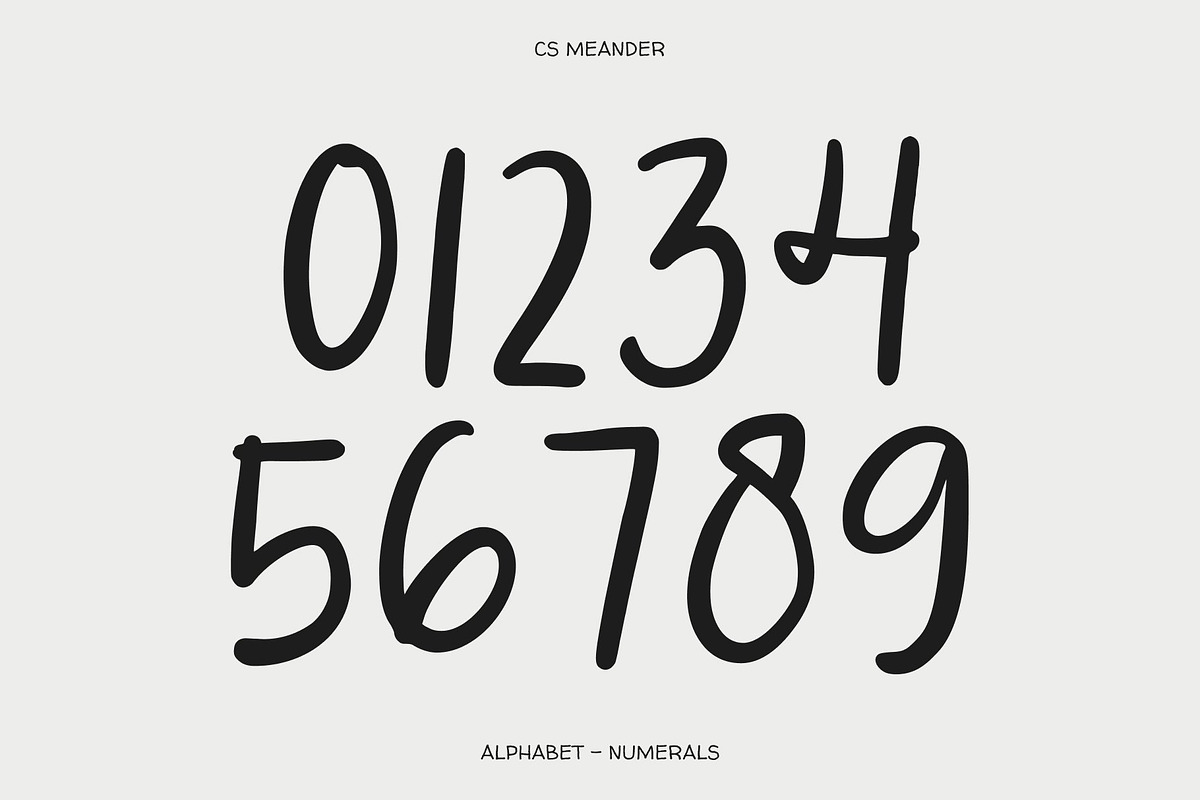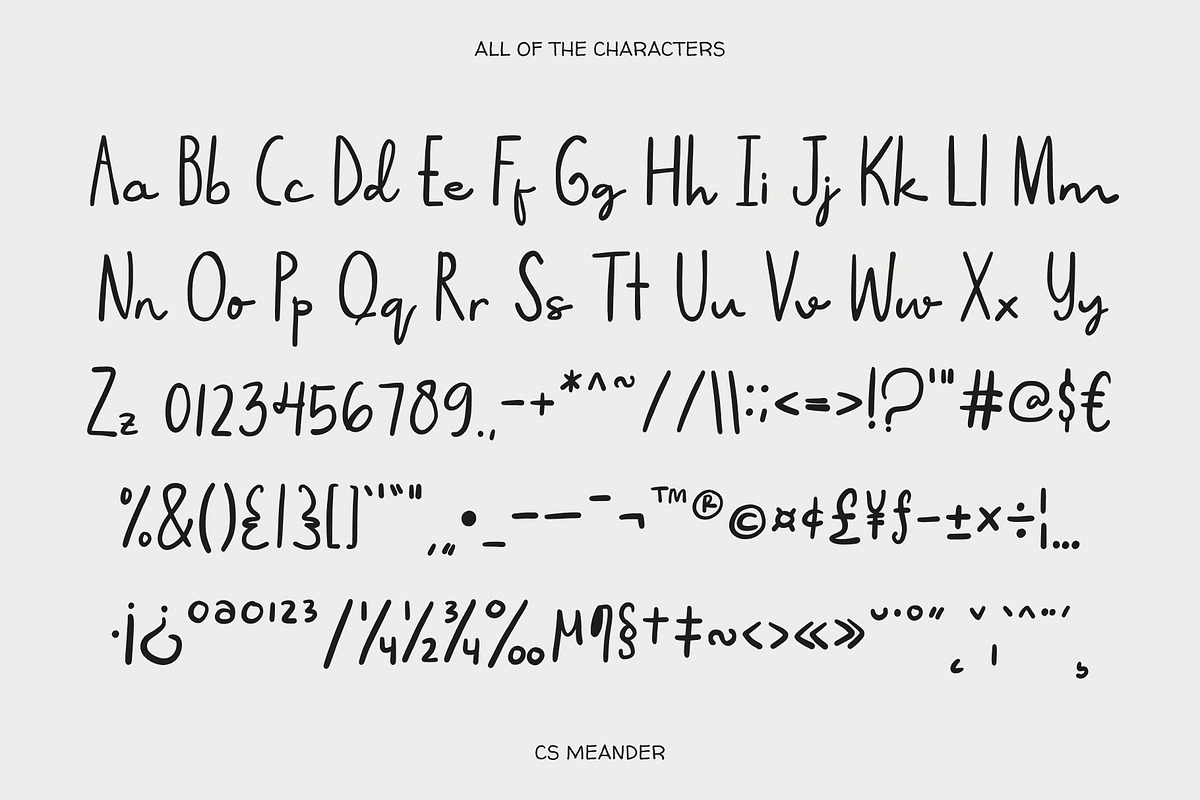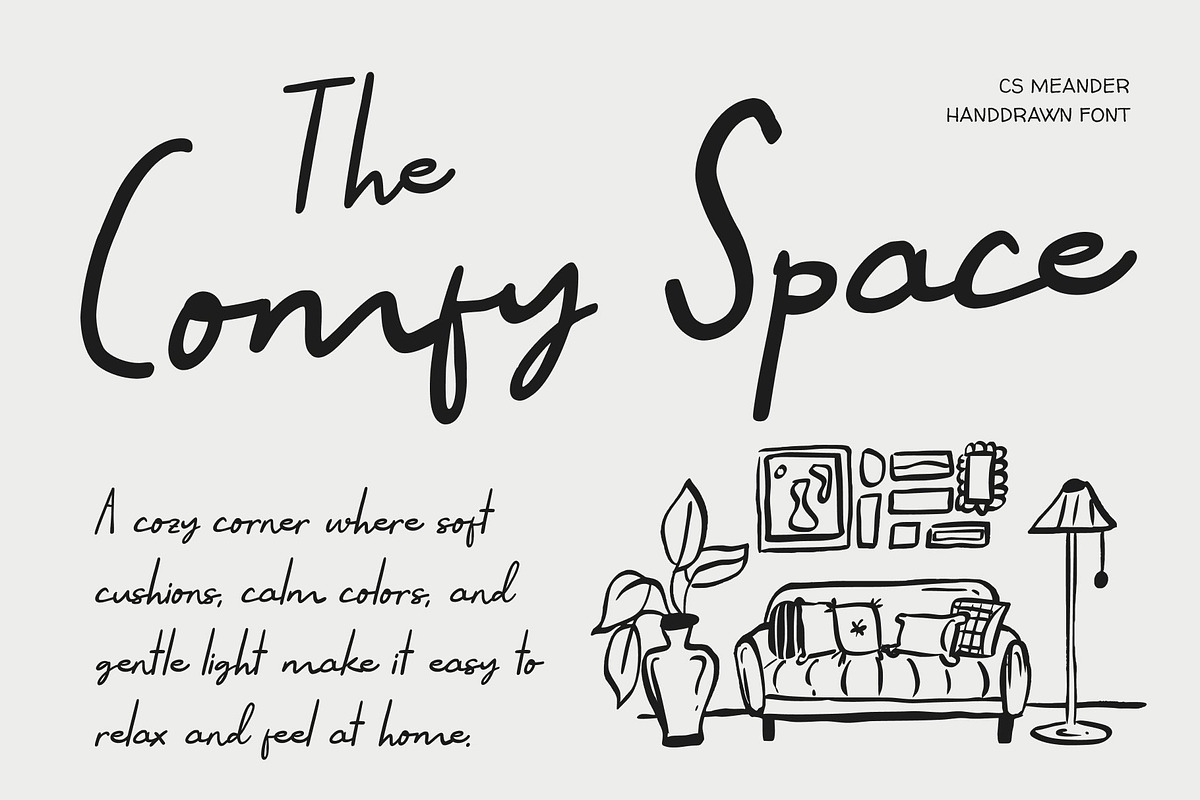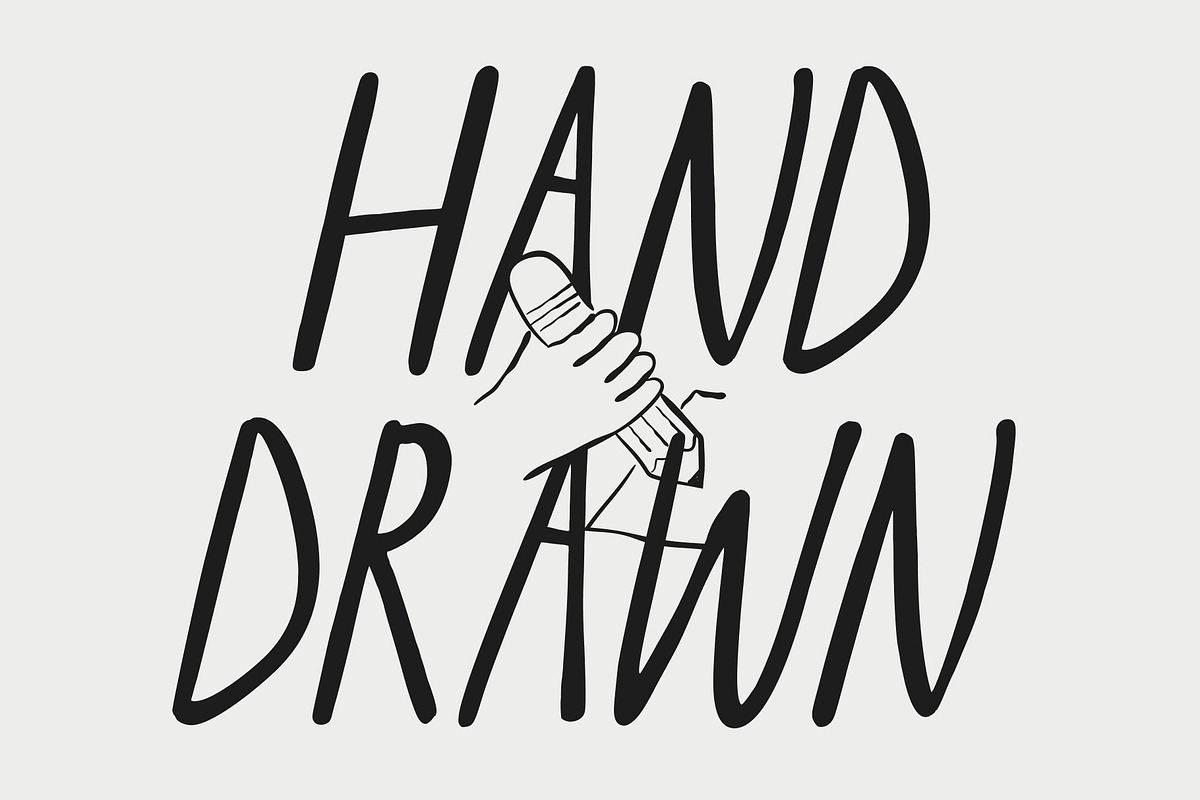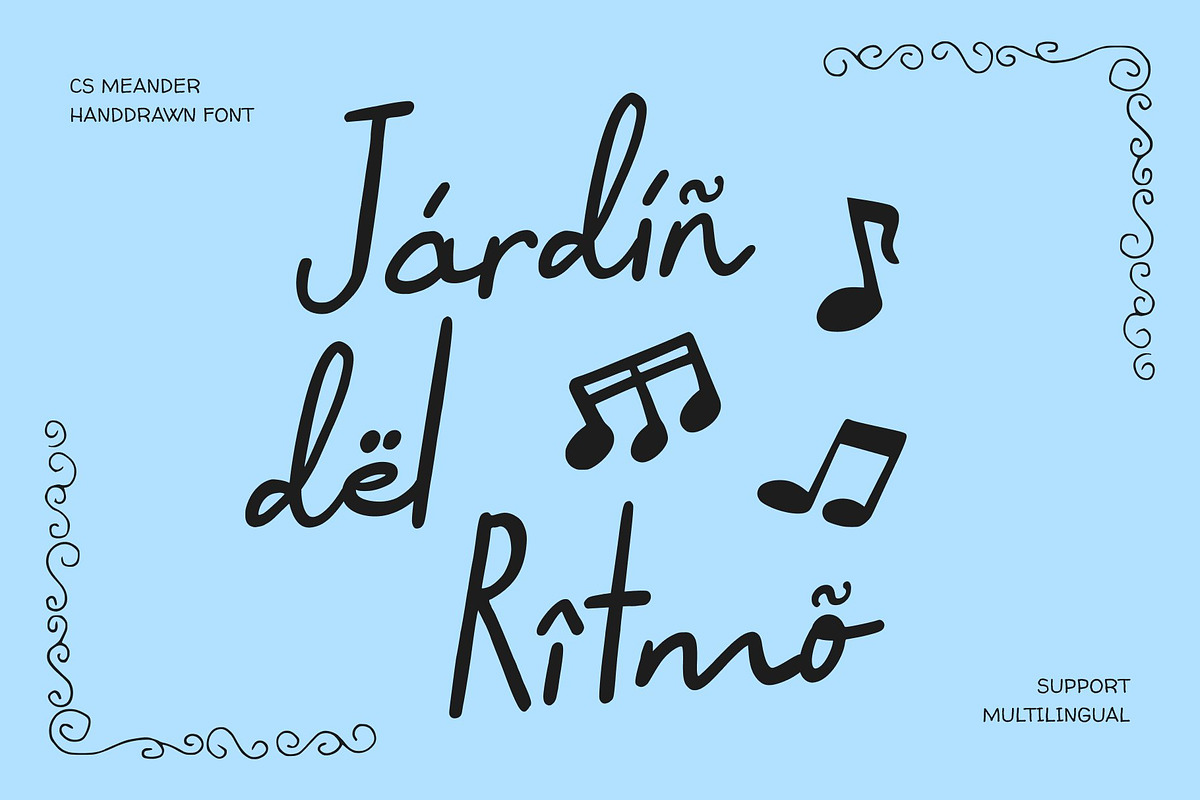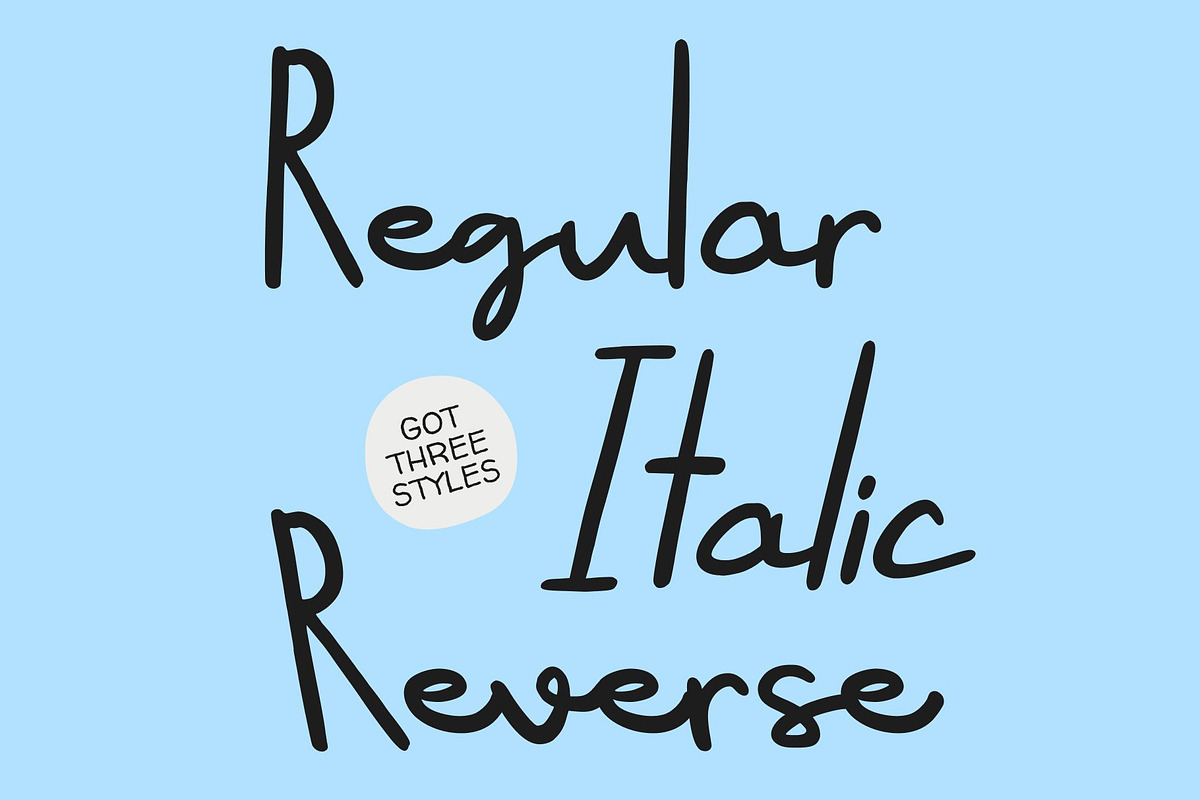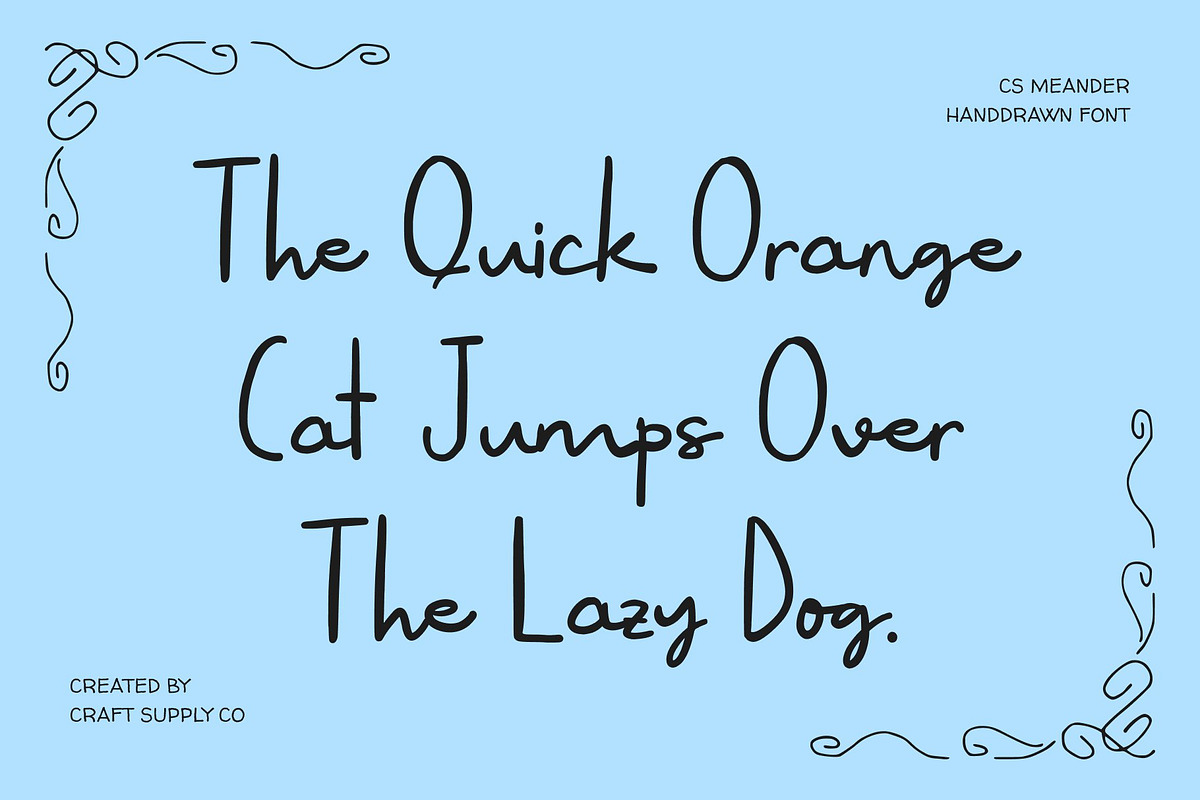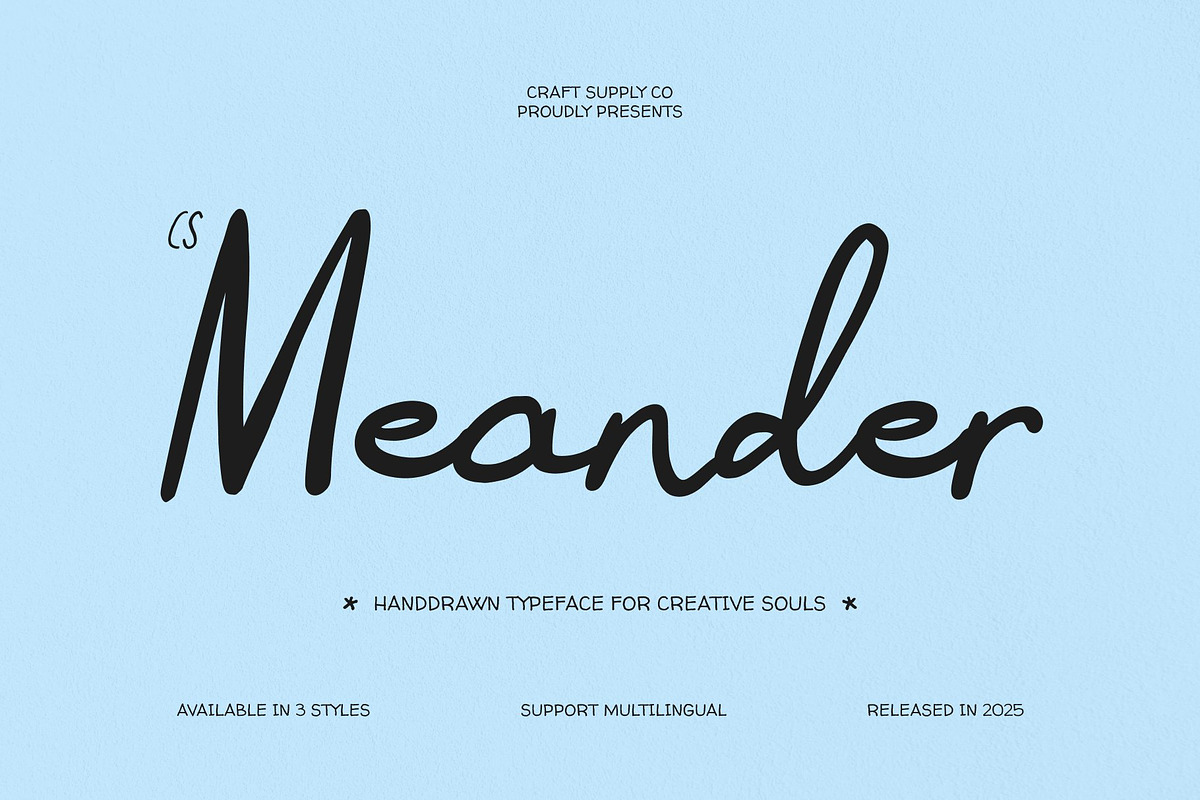
CS Meander – Handwritten Script
CS Meander – Relaxed Handwritten Style with Easygoing Charm
Relaxed Script Font with Casual Personality This is a relaxed script font designed to express simplicity, warmth, and an easygoing handwritten feel. Its natural strokes and unforced flow capture a laid-back personality that feels friendly and approachable. Inspired by everyday handwriting, this font brings a sense of comfort and authenticity to designs, making it perfect for projects that aim to feel personal, informal, and effortlessly stylish.
Simple Handwritten Forms with Natural Flow The letterforms of this font are intentionally simple, featuring smooth connections and balanced spacing that enhance readability. Each character flows naturally into the next, creating a gentle rhythm that feels calm and unpretentious. This simplicity allows the font to adapt easily across different layouts while maintaining its relaxed charm.
Easygoing Style for Casual Expression This font excels in conveying a casual and friendly tone. Its relaxed script style makes it ideal for expressive designs that value personality over formality. Whether used in short phrases or longer text, the font maintains clarity while delivering a soft, approachable aesthetic.
Perfect for Casual Branding, Posts, and Invitations Designed for versatile casual use, this font is perfect for branding, lifestyle posts, invitations, packaging, and social media graphics. Its relaxed handwritten style works beautifully for small businesses, personal brands, event invitations, and creative content.